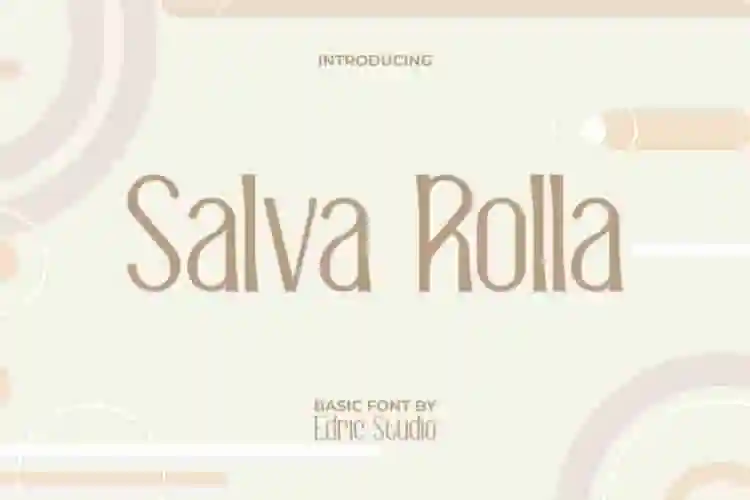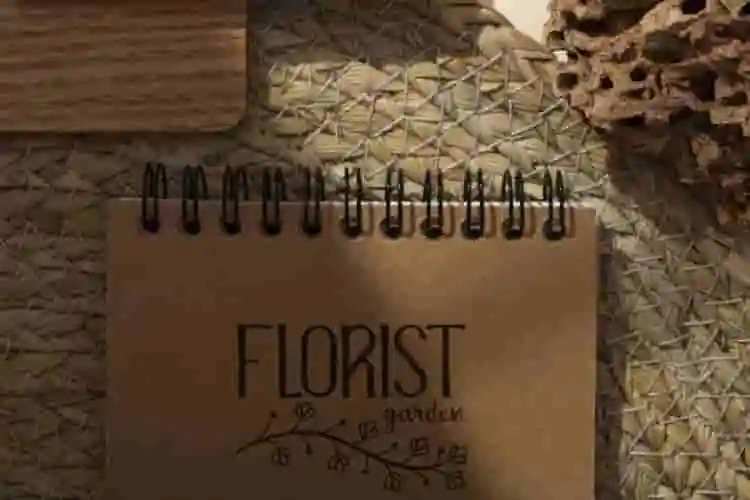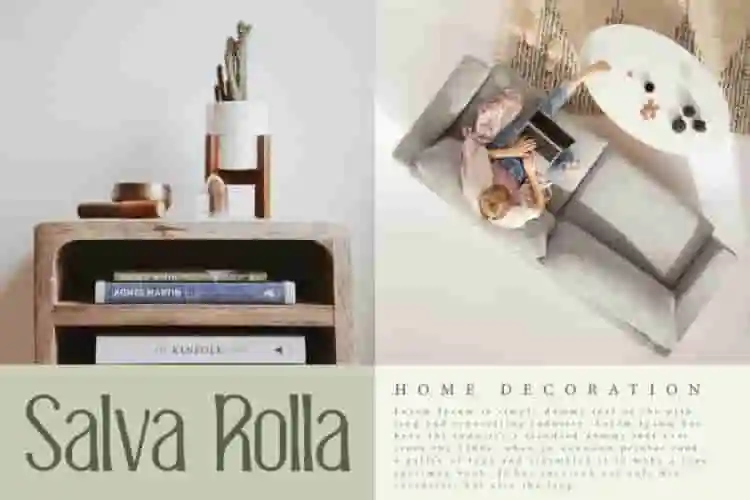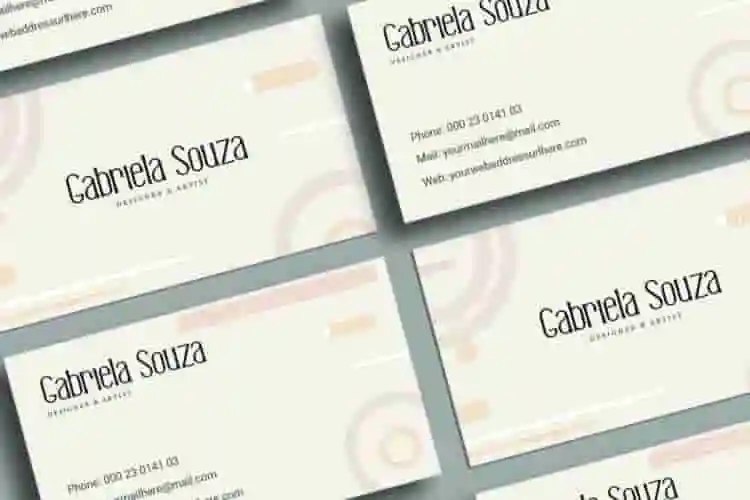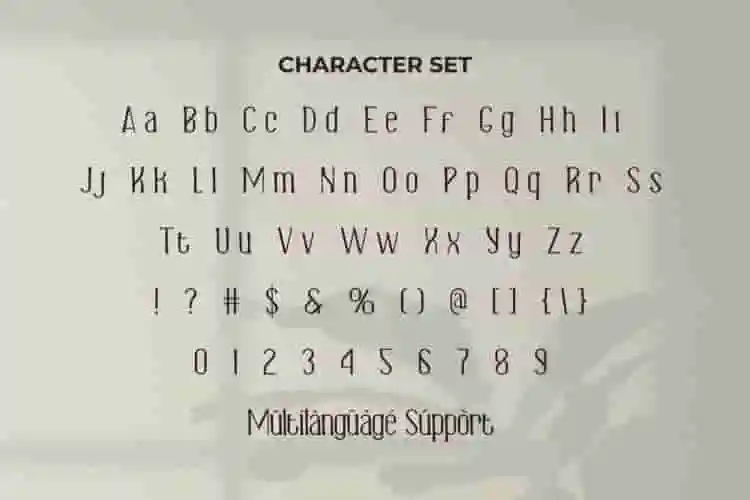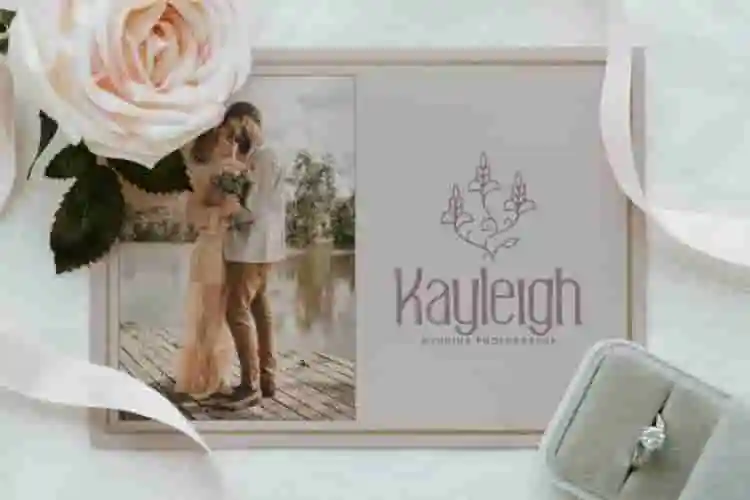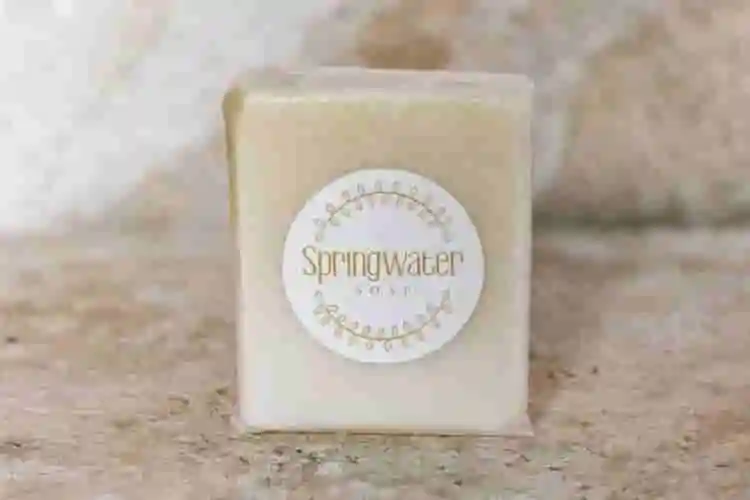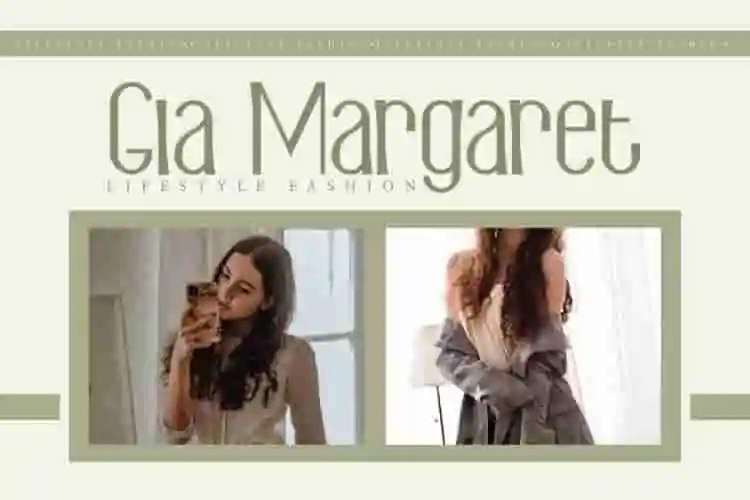
Salva Rolla Font is a unique stylish basic display font. This font has a fairly slim shape so it can provide a tall writing effect with a modern impression. It would be ideal for content art, café, creator, event organizer, fashion, furniture, graphic design, handicraft, photography, restaurant, writer, and many more!
Salva Rolla Font comes with a full set of Uppercase and Lowercase Basic Characters, Number, Punctuation, and Symbol. This font can be paired with other types of fonts without reducing its charm and can complement any project, including: brand image, cover, custom design, flyer, header, invitation, label, menu, packaging design, poster, quote, screen print, signage, stationery, sticker, title, website, etc.
Introducing Salva Rolla Display Font — a bold, artistic, and fashion-forward display typeface made for modern creatives who dare to stand out. With its stylish curves and strong presence, Salva Rolla was designed to make your headlines, logos, and branding truly unforgettable.
This display font features a mix of sharp lines and smooth flow, giving your typography a sense of movement and attitude. Whether you’re designing for fashion, music, editorial layouts, or lifestyle branding.
The expressive forms of Salva Rolla Display Font are perfect for display use—meaning titles, headers, and any large-format text that needs to lead the visual conversation.
- Unique Display Typeface
- Stylish Letterforms